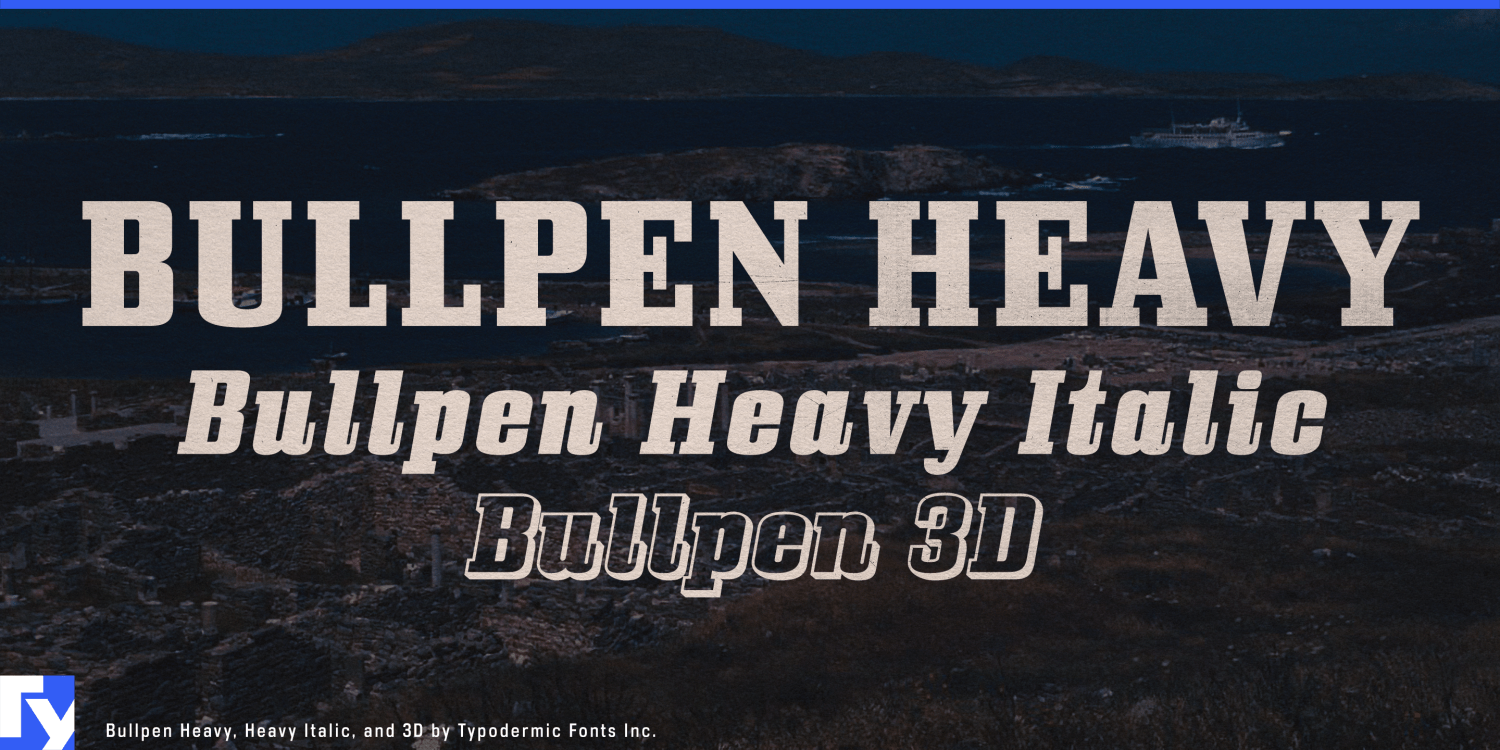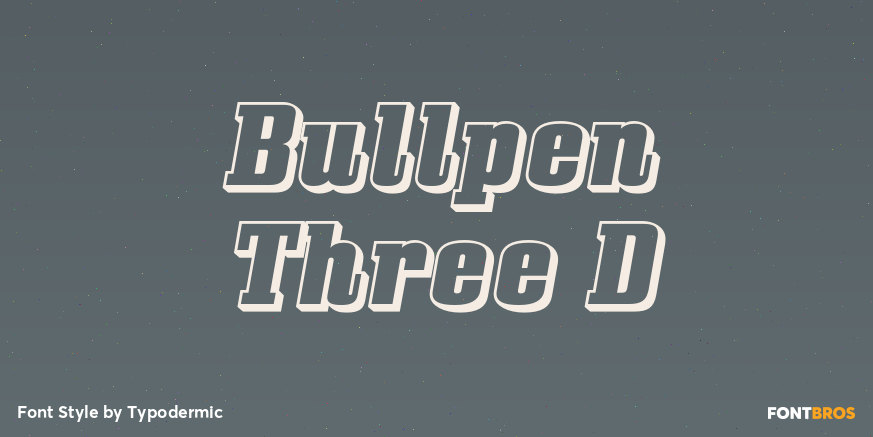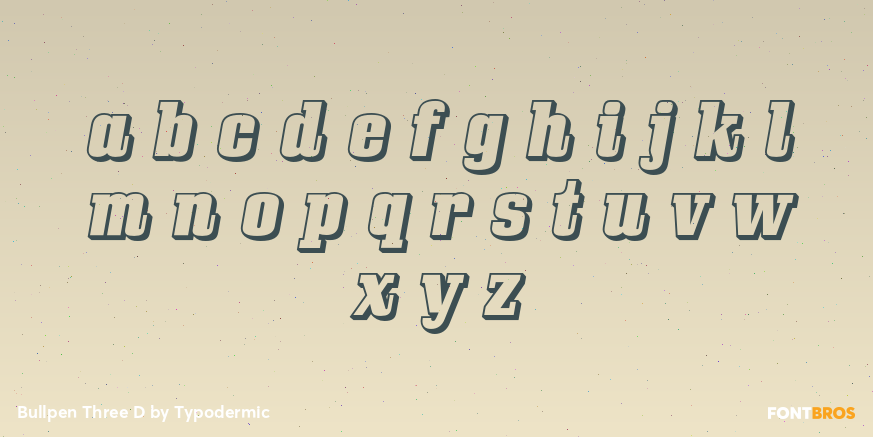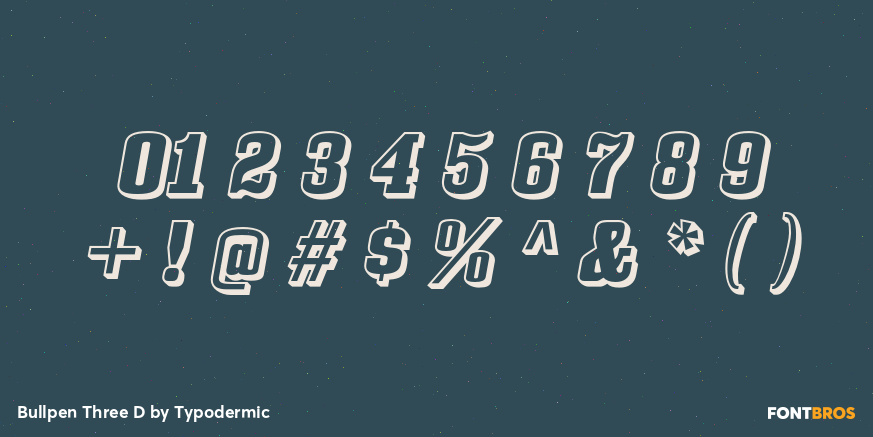
Bullpen Three D
Bullpen Three D turns Bullpen’s squared athletic slab into a layered display face, combining a bright inline edge with a dark offset shadow. The result feels like raised scoreboard lettering, dimensional varsity graphics, or a cut sign assembled from stacked materials. It keeps Bullpen’s sturdy collegiate skeleton while adding enough depth to make a short name, number, or slogan behave like the main graphic.